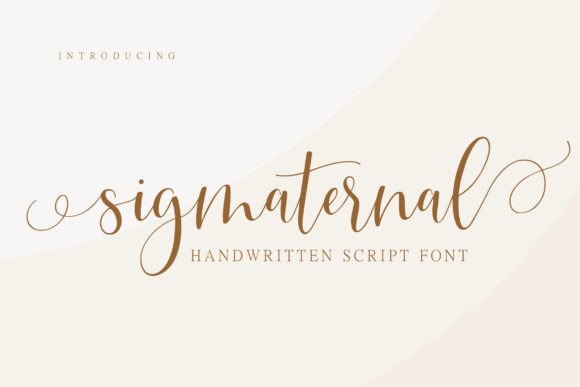
Introducing the Sigmaternal Font - the best font for small print web, created by the talented Bellinghamtype. This elegant script font will make you fall in love with its unique and timeless style, perfect for creating stunning designs.
Sigmaternal is not just a font, it's an experience! It's a freebie that you simply can't miss. Its PUA encoding ensures that you can access all the glyphs and swashes effortlessly, making it the perfect choice for your design needs. Whether you're a designer, blogger, or business owner, Sigmaternal will elevate your designs to the next level.
With its delicate strokes and elegant curves, Sigmaternal is the perfect choice for wedding invitations, logos, branding, and more. Its versatility makes it ideal for a wide range of projects, whether you're designing for print or the web. This font family is a must-have for anyone who wants to create beautiful and professional designs with ease.
One of the standout features of Sigmaternal is its ability to make your small print web designs pop. This font is specifically designed to be the best choice for small print, ensuring that your message is delivered with clarity and style. With Sigmaternal, you can be confident that your designs will not only look great but also be easy to read.
In conclusion, if you're looking for a font that will take your designs to the next level, then look no further than Sigmaternal. Its unique style, ease of use, and versatility make it the perfect choice for any design project. Download this lovely freebie today and start creating stunning designs that will capture the attention of your audience.